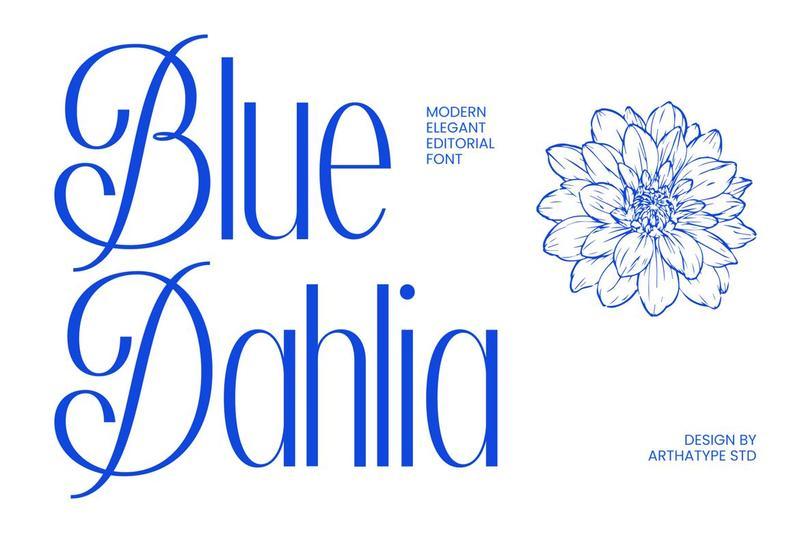
**Blue Dahlia** is a modern elegant editorial font designed to bring refinement and character to premium creative projects. Featuring graceful high-contrast letterforms and expressive swash capitals, this serif typeface creates a sophisticated visual presence while remaining highly readable.
The combination of classic editorial influence and contemporary styling makes Blue Dahlia suitable for a wide range of applications, from branding and packaging to magazines, invitations, website headers, and social media content. Its decorative uppercase characters offer additional flexibility for logos, monograms, and standout headlines.
Whether you’re designing a luxury product label, a wedding invitation suite, a boutique brand identity, or an editorial layout, Blue Dahlia helps create a polished and memorable impression.
**Why You’ll Love Blue Dahlia**
* Elegant Swash Capitals Decorative uppercase letters add personality and make beautiful logo marks, monograms, and signature-style headlines.
* Editorial Character Designed for magazine covers, article titles, book covers, lookbooks, catalogs, and sophisticated print layouts.
* Premium Branding Potential Ideal for packaging, beauty products, jewelry brands, boutique businesses, wellness brands, and high-end visual identities.
* Digital & Print Ready Works beautifully across websites, social media graphics, presentations, advertisements, and printed materials.
_Bring elegance, personality, and editorial charm to your next project with Blue Dahlia._